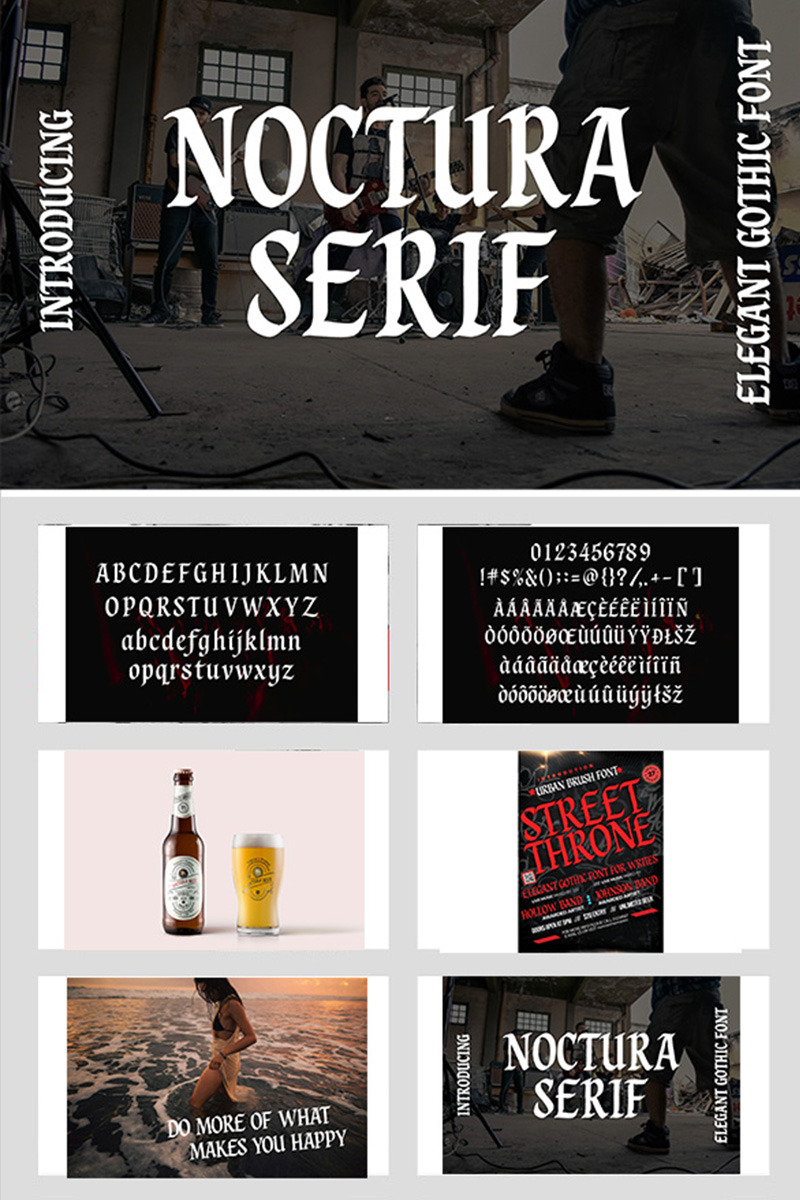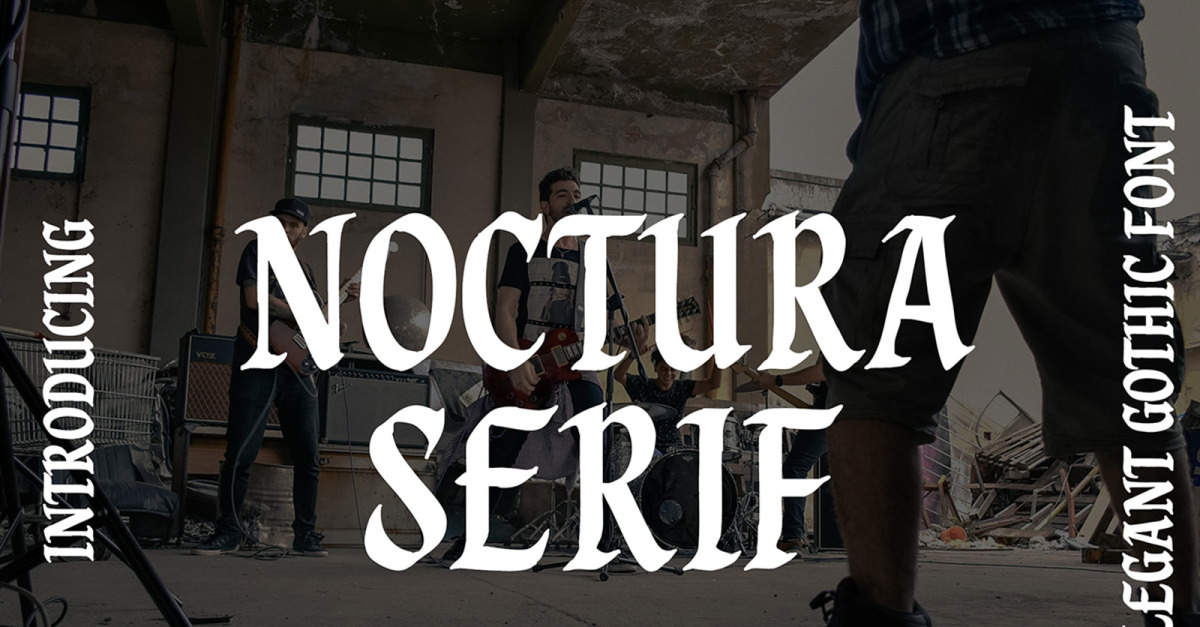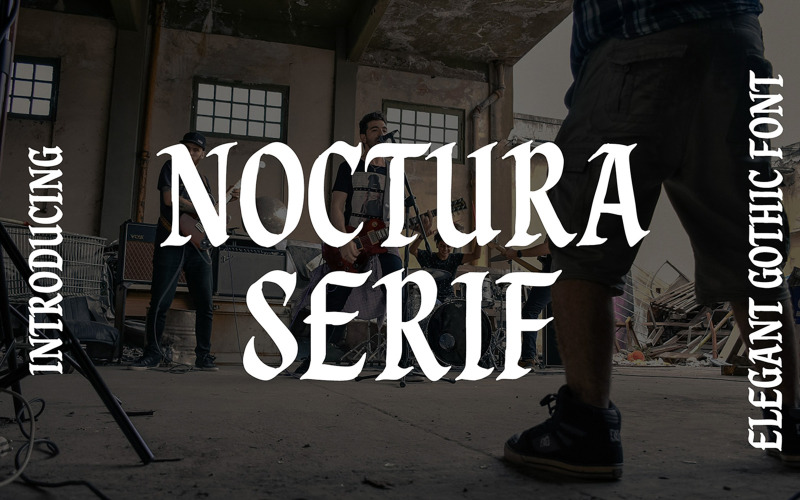
Noctura Elegant Gothic Font
Noctura Gothic
Noctura Elegant Gothic Display Font Serif blends modern gothic style with elegant, sharp details. Perfect for luxury branding, logos, posters, and packaging, it delivers a bold yet refined look inspired by classic Blackletter.
- - 223 Glyps included Uppercase, Lowercase, Numeral, Punctuation, Multilingual international Language.